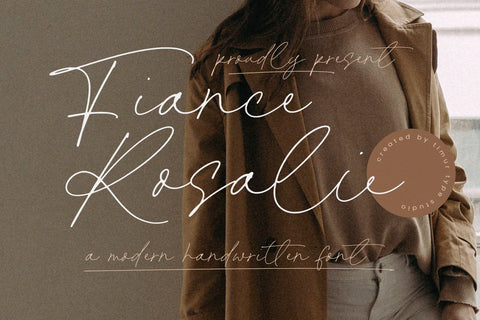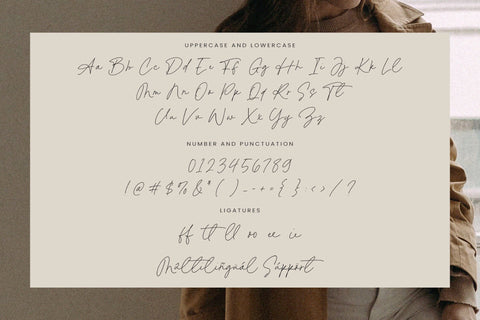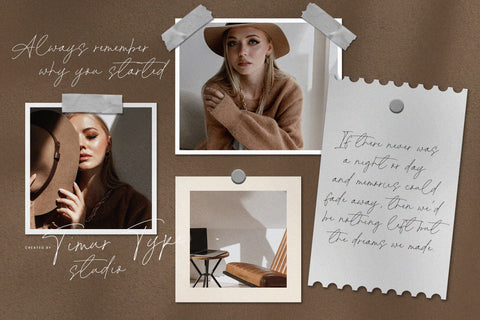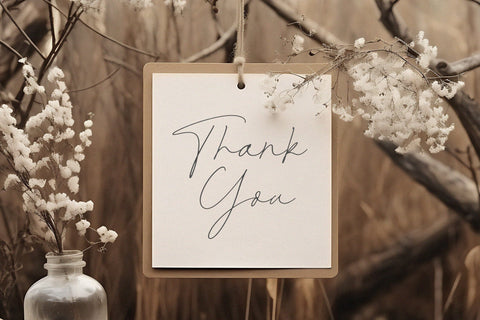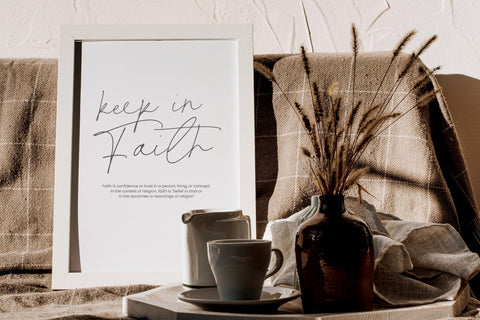
Fiance Rosalie - Modern Handwritten Font
Fiance Rosalie is a Modern Handwritten Font
This font is a stylish and contemporary choice for your design projects. With its sleek and fluid letterforms, this font combines elegance with a touch of informality. The clean lines and sophisticated curves give the Fiance Rosalie font a modern and chic aesthetic, perfect for adding a trendy twist to your branding materials, invitations, and social media graphics. Whether you're aiming for a sleek and professional look or a casual and approachable vibe, the Fiance Rosalie font offers versatility and style. Embrace the modern sophistication of the Fiance Rosalie handwritten font and elevate your designs with its polished charm
Fiance Rosalie Font also supports multilingualism.